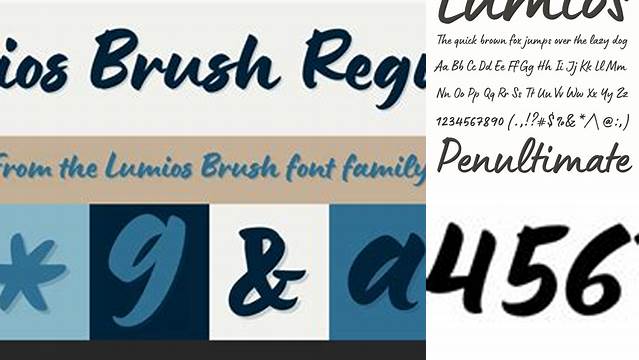
Lumios Brush Regular Font Free: Download & Usage Guide
Introduction to Lumios Brush Regular Font
Hey guys! Are you looking for a font that effortlessly blends the charm of hand-lettering with modern legibility? Look no further! Lumios Brush Regular Font might just be the perfect solution for your design needs. This font, with its distinctly hand-crafted feel, brings a unique touch to any project, whether it's a website, a logo, or even your social media graphics. In this comprehensive guide, we'll dive deep into everything you need to know about Lumios Brush Regular Font, from its key features and applications to where you can find it for free and how to make the most of it in your designs. We will also discuss some tips and tricks to ensure that you utilize this font effectively, enhancing your creative projects with its unique flair. Think of this font as your secret weapon for adding personality and warmth to your designs. The beauty of Lumios Brush Regular Font lies in its ability to evoke a sense of authenticity and artistry. Unlike sterile, overly-polished fonts, Lumios Brush speaks directly to the viewer, creating a connection through its organic strokes and fluid lines. So, grab your favorite beverage, settle in, and let's explore the world of Lumios Brush Regular Font together!
What Makes Lumios Brush Regular Font Special?
So, what exactly makes Lumios Brush Regular Font stand out from the crowd? Well, there are several factors that contribute to its unique appeal. First and foremost, it's the authentic brushstroke aesthetic. The font is designed to mimic the natural flow of a brush on paper, giving it a hand-drawn, organic feel that's hard to replicate with other fonts. This makes it ideal for projects where you want to convey a sense of warmth, creativity, and personality. Imagine using it for a wedding invitation or a blog header – the effect is instant and impactful. Secondly, Lumios Brush Regular Font boasts excellent legibility, despite its artistic flair. This is crucial because, let's face it, a beautiful font is useless if no one can read it! The spacing and letterforms are carefully crafted to ensure that the font remains clear and readable even at smaller sizes. This versatility is a huge plus, making it suitable for a wide range of applications, from print materials to digital designs. Finally, the font often comes with a set of ligatures and alternate characters, adding even more customization options. Ligatures are special characters that combine two or more letters into a single glyph, creating a smoother and more natural flow. Alternate characters provide variations on certain letters, allowing you to further personalize your typography and avoid repetition. These features give you the creative freedom to truly make Lumios Brush Regular Font your own, tailoring it to the specific needs of your project. Isn't that awesome?
Key Features of Lumios Brush Regular Font
Okay, let's break down the key features of Lumios Brush Regular Font in more detail. This is where we really get into the nitty-gritty and understand what makes this font tick. We've already touched on the authentic brushstroke feel, which is arguably its defining characteristic. But there's more to it than just the hand-drawn look. The font also incorporates subtle variations in stroke thickness and texture, mimicking the natural imperfections that occur when using a physical brush. This attention to detail is what gives it such a genuine and realistic appearance. Then there's the legibility factor. As mentioned before, Lumios Brush Regular Font is surprisingly easy to read, thanks to its carefully considered letterforms and spacing. This makes it a versatile choice for both display and body text, although it truly shines in headings and titles. The font's x-height (the height of the lowercase letters) is also well-proportioned, contributing to its overall readability. Another feature that sets Lumios Brush Regular Font apart is its character set. It typically includes a full range of uppercase and lowercase letters, numbers, punctuation marks, and symbols. This ensures that you have everything you need to create compelling designs in any language. And, as we discussed earlier, the inclusion of ligatures and alternate characters is a major bonus. These stylistic additions allow you to fine-tune your typography and achieve a truly unique look. Think of them as the secret ingredients that take your design from good to great. So, with its authentic brushstroke aesthetic, excellent legibility, comprehensive character set, and stylistic extras, Lumios Brush Regular Font is a powerhouse of creative potential. Are you excited yet?
Applications of Lumios Brush Regular Font in Design
Now, let's talk about where you can actually use Lumios Brush Regular Font. The possibilities are pretty much endless, but here are a few key areas where it really shines. First up, we have branding. Lumios Brush Regular Font is perfect for creating logos and visual identities that feel personal, approachable, and unique. Think of brands that want to project a sense of creativity, craftsmanship, or authenticity – this font is a natural fit. It can help them stand out from the crowd and connect with their audience on a more emotional level. Then there's the world of web design. Lumios Brush Regular Font can add a touch of personality to your website headers, call-to-actions, and other key elements. It's a great way to break up the monotony of standard web fonts and make your site more visually engaging. Just be mindful of using it sparingly, as too much brush script can become overwhelming. Next, we have print materials. Lumios Brush Regular Font is fantastic for invitations, cards, posters, flyers, and other printed materials. It adds a touch of elegance and sophistication to any project, making it ideal for special occasions and events. Imagine receiving a wedding invitation with beautifully calligraphed details – it instantly sets a romantic and personalized tone. Social media is another area where Lumios Brush Regular Font can make a big impact. It can help you create eye-catching graphics and captions that grab attention and convey your brand's personality. Using it consistently across your social media platforms can also help you build brand recognition and create a cohesive visual identity. Finally, let's not forget about editorial design. Lumios Brush Regular Font can be used to add visual interest to magazines, books, and other publications. It's particularly effective for headings, subheadings, and pull quotes, helping to break up the text and draw the reader's eye. So, whether you're designing a logo, a website, a poster, or a social media graphic, Lumios Brush Regular Font has something to offer. Its versatility and charm make it a valuable addition to any designer's toolkit.